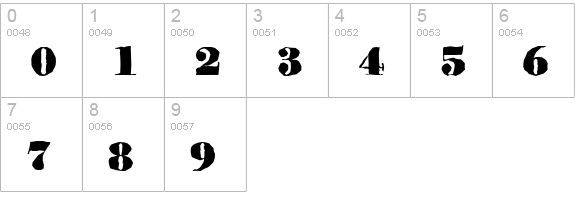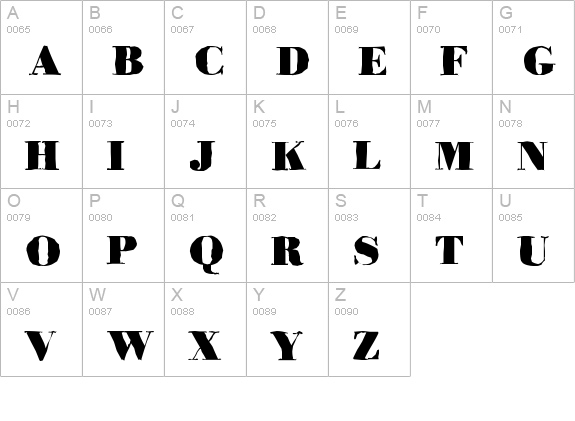
BodoniAntique-Black-Regular is a maximum-weight, dramatic variant in the BodoniAntique typeface family \xE2\x80\x94 well suited to maximum-impact headlines, posters, and packaging.
Bodoni Antique Black Regular font exudes elegance and sophistication with its bold and timeless design. Its striking contrast between thick and thin strokes commands attention and makes a bold statement in any design project. The classic serifs and clean lines of this typeface give it a refined and luxurious feel, perfect for adding a touch of sophistication to any project. And the best part? Bodoni Antique Black Regular font is available for free download at FontsMarket.com. Whether you're working on a branding project, editorial design, or any other creative endeavor, this font is sure to elevate your work with its sleek and stylish appearance. Don't miss out on this opportunity to enhance your designs with this beautiful typeface, download it today and see the difference it can make!